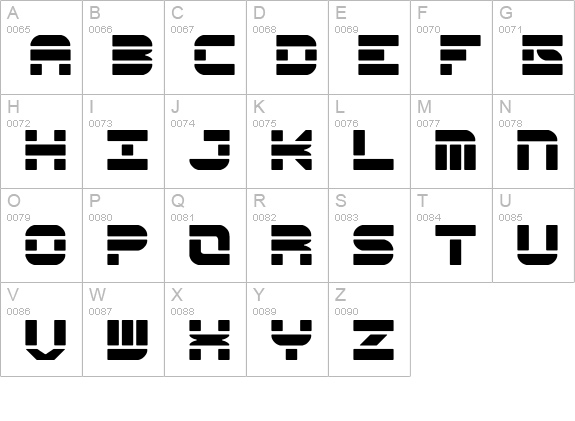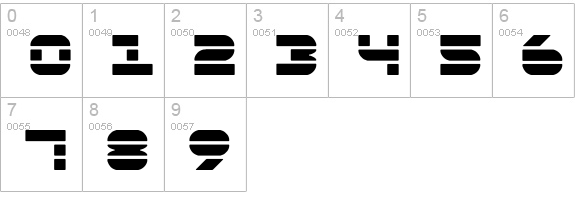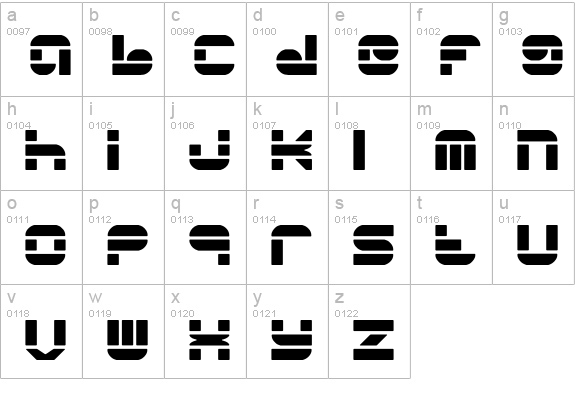
Pseudo (BRK) is a unique and eye-catching font that adds a touch of modernity to any design project. With its bold and angular letterforms, Pseudo (BRK) exudes a sense of strength and confidence. This font is perfect for headlines, logos, and other display purposes where you want your text to make a statement. The best part about Pseudo (BRK) is that it is completely free to download at FontsMarket.com. Whether you are a designer looking to add a fresh font to your collection or a business owner wanting to give your branding a facelift, Pseudo (BRK) is a versatile choice that won't cost you a dime. Don't miss out on this fantastic opportunity to enhance your projects with this striking font - download Pseudo (BRK) today and make your designs stand out from the crowd!